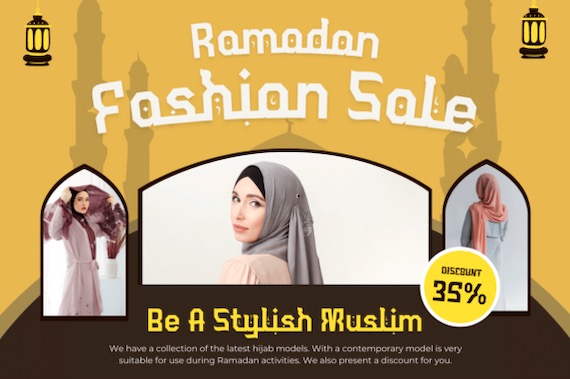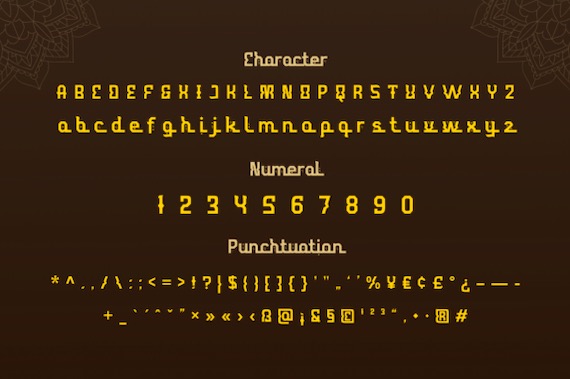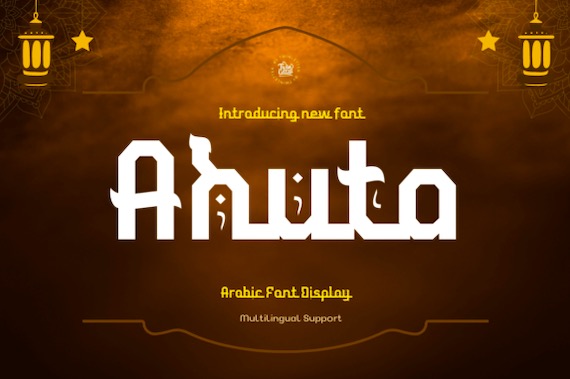
Ahuta has a unique Arabic style, this display font was designed and shared by Twinletter along with a true vintage Arabic look, but in a simple and elegant form, so you can use it in all your designs which will surely make your projects beautiful. This font has been created by our dedicated team to create the best quality typeface you will ever find.
Ahuta Display Font